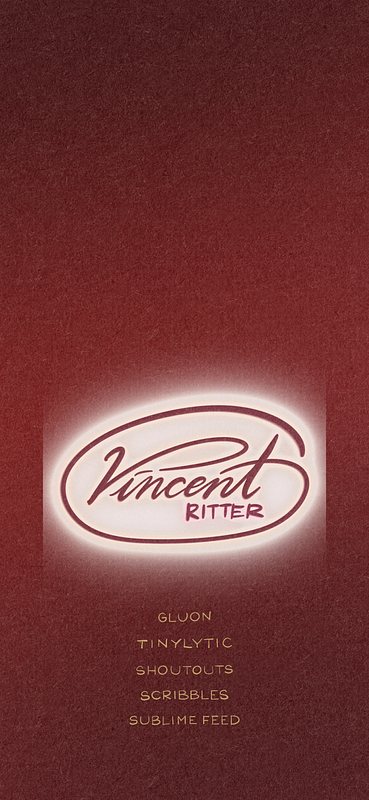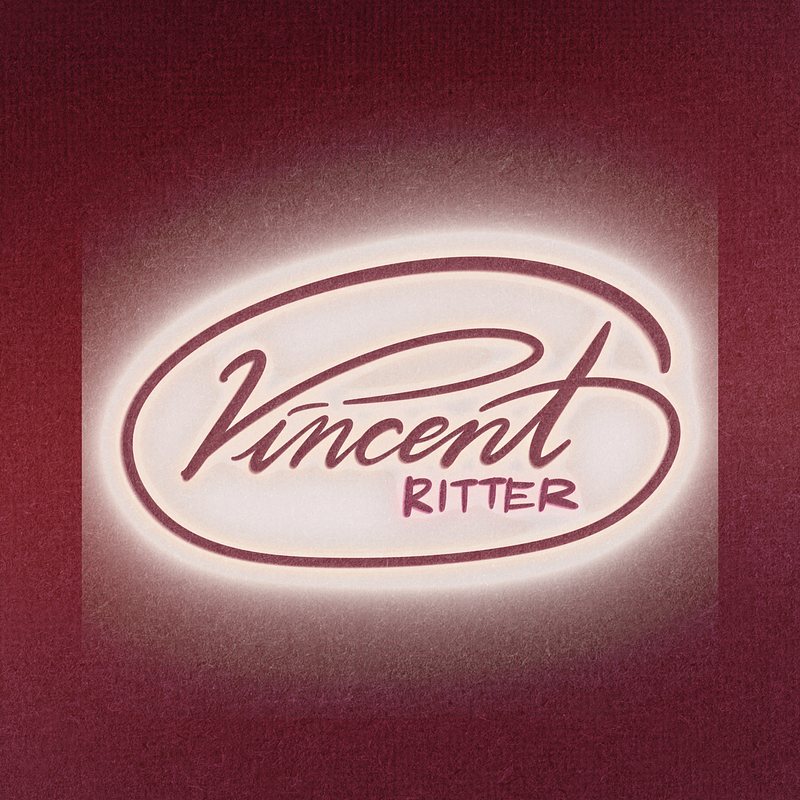
The Commission 00003-Wallpapers for Vincent Ritter
Vincent tried to help me get a new iPad (and you can help too!), so he gave me a tip that made me feel over the moon when I saw the amount. I wanted to show my gratitude with some lettering, but he didn’t give me any brief, so I had to wing it myself!
Then, I remembered he mentioned liking red before, so I used a deep red and brown color scheme. I also added the names of all his projects at the bottom as a reminder of his achievements so far. He has provided great services and should be proud of them!
I envisioned something like a wine package, but he thought it reminded him of a chocolate box, LOL. In hindsight, I should’ve added gold to the design. 😂